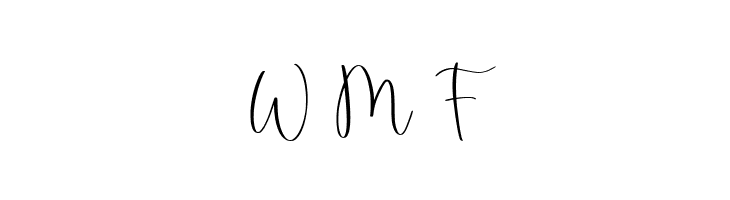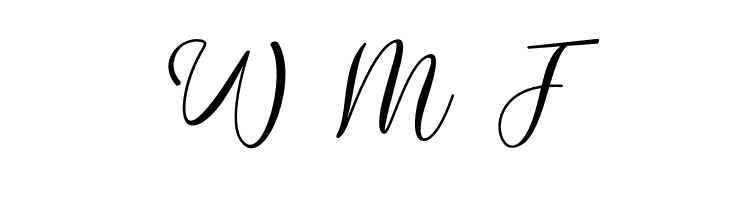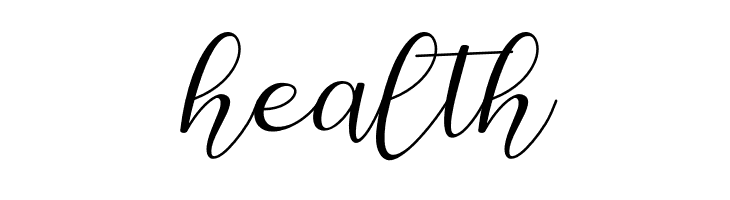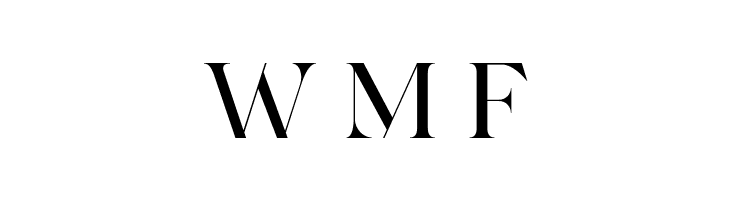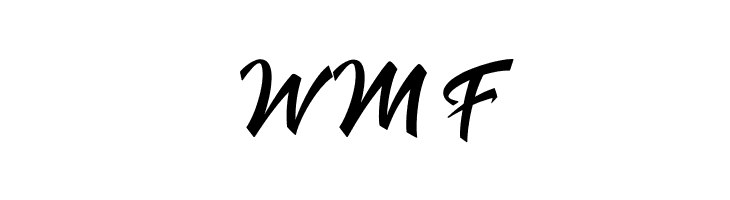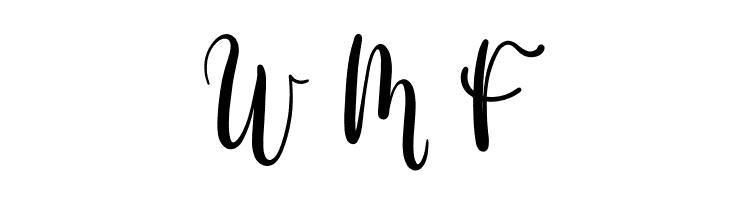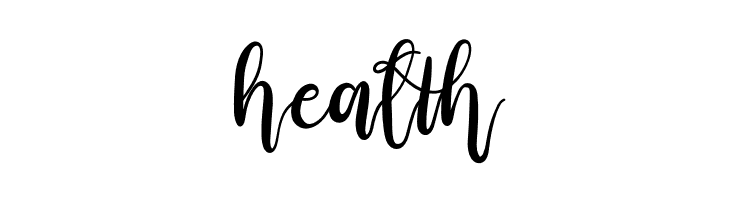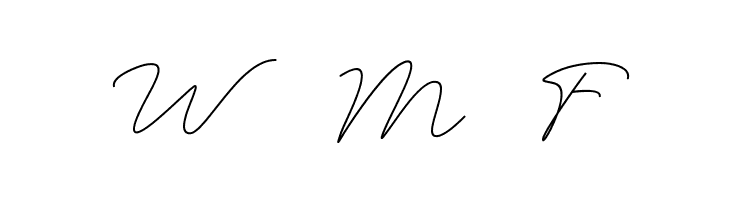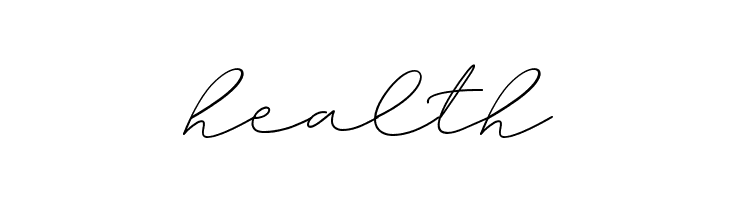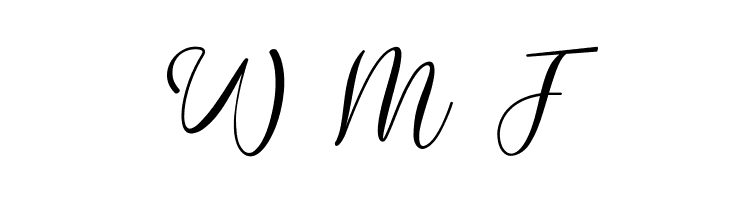
• Amali
• Amalia
An elegant script font with flowing, cursive letters and sophisticated style.
• Amalia
A graceful script font with flowing, connected letters and elegant flourishes.
• amalia nurse
A playful and elegant handwritten script font with smooth, flowing strokes.
• Amalia Salvatore
An elegant, cursive font with flowing, handwritten style and ornate flourishes.
• amaliamutia
• Amaliani
A dynamic and flowing script font with elegant cursive letterforms.
• Amalina
A graceful script font with fluid, interconnected strokes and a natural handwriting style.
• AmalineTrial-Regular
A classic serif font with high contrast and elegant, sharp serifs.
• AmalisthicaAnastasya
Casual handwritten font with a playful style.